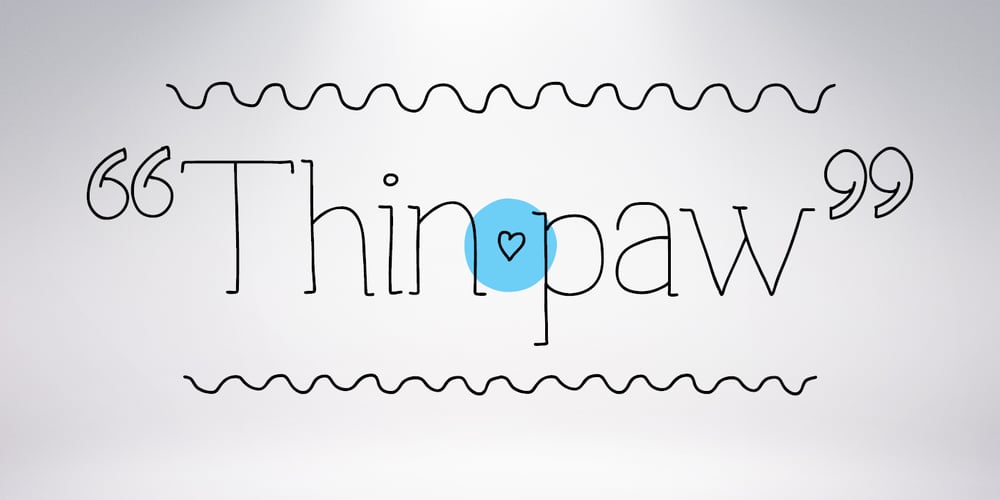
Thinpaw Font Family was designed by Vaclav Krejci and published by upirTYPO. Thinpaw contains 1 styles and family package options. Thinpaw is a serif handwritten font perfect for usage in a really big sizes (50 pt+). The stem width is about 0.5 mm (0.019″) in 100 pt size. The font comes with central european character set and a set of various glyphs and icons (see preview images). Opentype features: – Standard ligatures – fi, fl, ff – Discretionary Ligatures – ft, fb, fh, fk, fj – Contextual Alternates – a, e, f, g – Stylistic set 01: A Stylistic set 01 changes every dot into the heart shape symbol. It turns every writing into a nice looking love letter! Thinpaw is perfect for wedding proposals, wedding invitations, happy birthday cards or anything personal. For usage on the computer screen, the stem width is about 1 pixel for 50 pt size, and 2 pixel for 100 pt size.